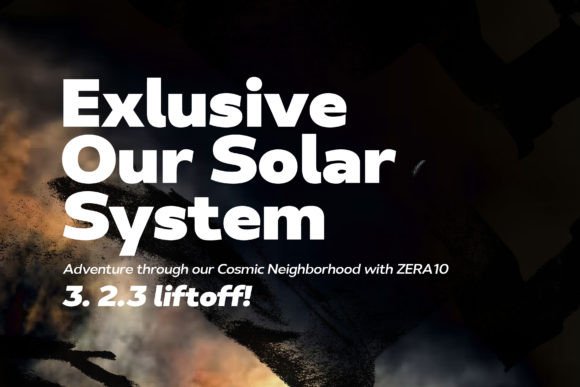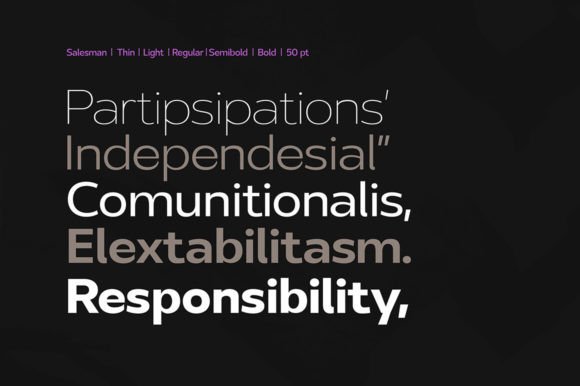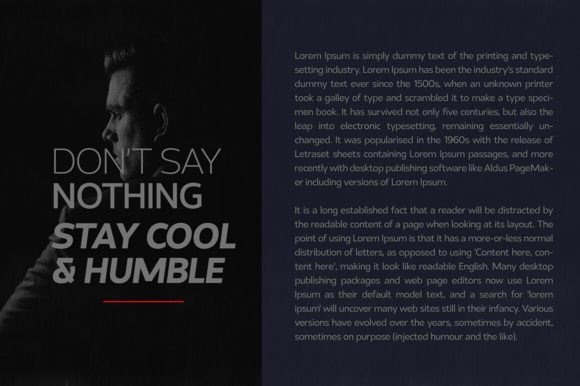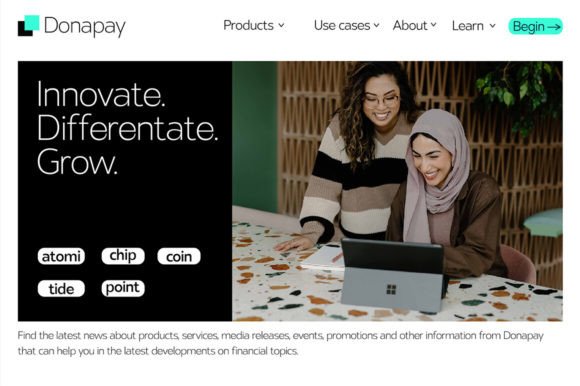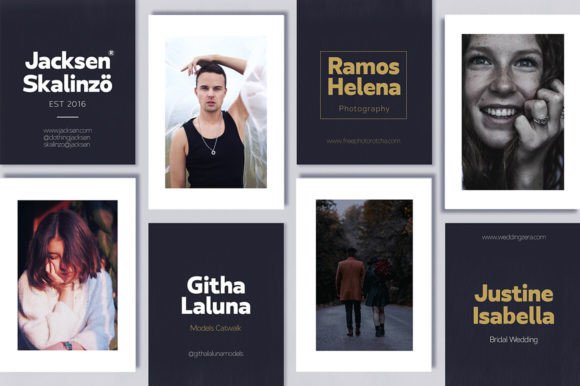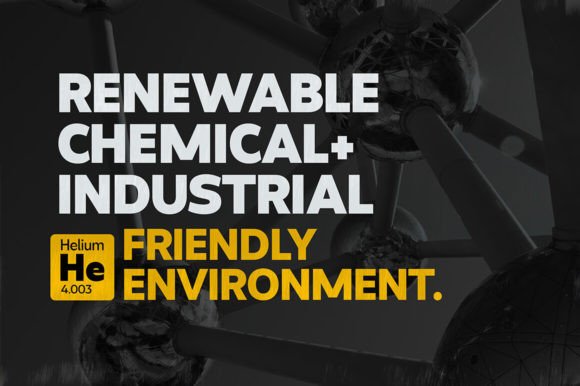
Introduction to Koran Font Font
Fonts play a crucial role in design, and the Koran Font font is a typeface that brings both character and versatility to any project. Whether you’re working on a branding project, a website, or a print design, the Koran Font font offers a unique style that can elevate your work.
Koran Sans is a clean family sans that is absolutely perfect for editorial headlines.
The complete font family of upright and italic letters makes it easy for you to use 18 styles in many projects This font style is bold, bold, and sleek, making it perfect for editorial, web, posters, t-shirts, magazine covers, etc Koran sans exudes character but is still useful thanks to its restrained geometric styling and modern construction.
Key Features of Koran Font Font
Why Choose Koran Font Font?
The Koran Font font is more than just a typeface – it’s a design tool that helps you communicate your message with style and clarity. Its unique character set and versatile design make it suitable for a wide range of applications, from elegant invitations to bold headlines.
With its carefully crafted letterforms and balanced proportions, the Koran Font font ensures readability and visual appeal across all mediums.
What makes Koran Font font special?
The Koran Font font stands out with its unique design, exceptional readability, and versatility across various design applications.